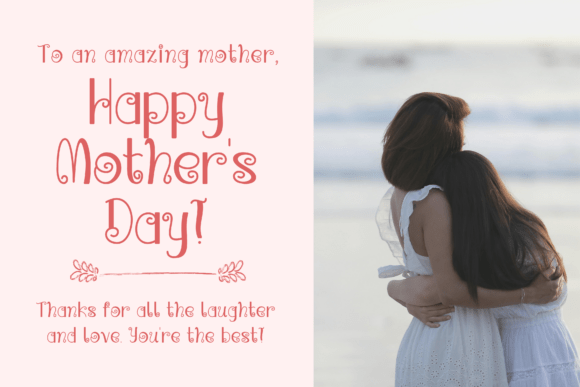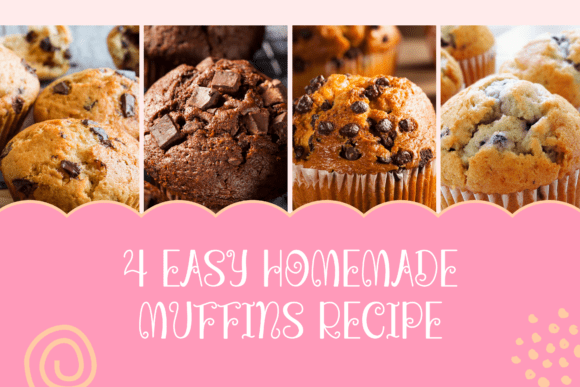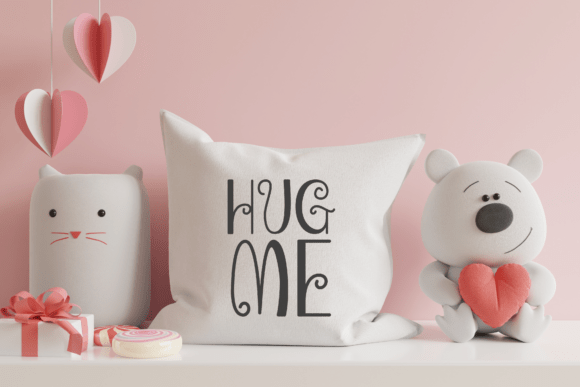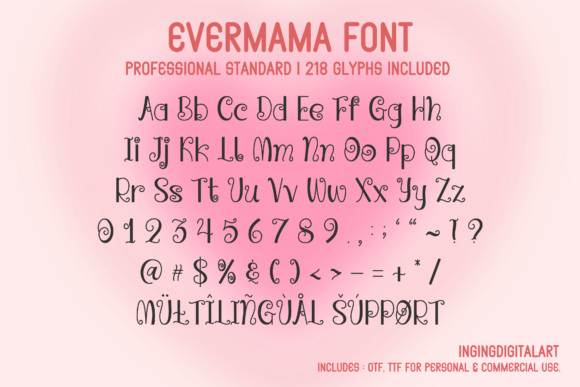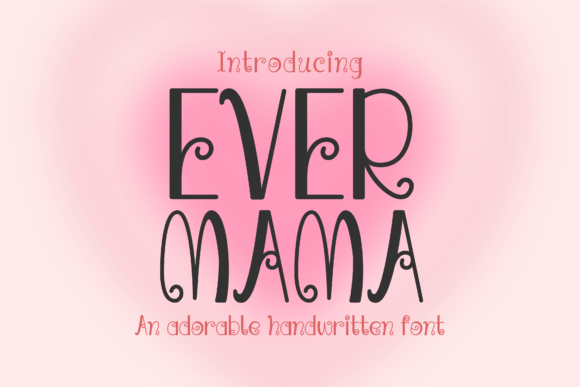
Introducing Evermama Font: Add a Touch of Warmth and Sweetness to Your Creations
Are you looking for a font that can bring a touch of warmth and sweetness to your designs? Look no further than EverMama, an adorable handwritten font with a whimsical twist. This charming font is perfect for designers and crafters who want to add a personal and loving touch to their projects.
The Characteristics of Evermama Font
EverMama font features charming curly details and a playful, feminine style that makes it perfect for heartwarming projects. The font has a joyful, hand-crafted feel that makes every design special. Whether you are designing Mother’s Day greeting cards, sweet recipe layouts, nursery room decor, or beautiful crafted gifts, EverMama brings a cozy and loving aesthetic to your work.
Perfect for Heartwarming Projects
EverMama font is ideal for designers and crafters who want to create heartwarming projects that showcase their personality and style. The font’s playful and feminine style makes it perfect for:
- Mother’s Day greeting cards and invitations
- Sweet recipe layouts and cookbooks
- Nursery room decor and baby shower invitations
- Beautiful crafted gifts and DIY projects
- Wedding stationery and romantic getaway designs
Why Choose Evermama Font?
There are many reasons why EverMama font stands out from other fonts. Here are a few:
- Unique and Whimsical Design: EverMama font has a unique and whimsical design that sets it apart from other fonts. The charming curly details and playful style make it perfect for designers and crafters who want to add a personal touch to their projects.
- Easy to Read and Use: Despite its whimsical design, EverMama font is easy to read and use. The font is clear and legible, making it perfect for designs that require a lot of text.
- Versatile: EverMama font is versatile and can be used for a wide range of projects. Whether you are designing a greeting card, a recipe layout, or a nursery room decor, this font is perfect for any project that requires a personal and loving touch.
Tips for Using Evermama Font
Here are a few tips for using EverMama font in your designs:
- Pair it with Other Fonts: EverMama font pairs well with other fonts, especially serif fonts. Try pairing it with a serif font for a beautiful and elegant design.
- Use it for Headings and Titles: EverMama font is perfect for headings and titles. Use it to add a personal touch to your designs and make them stand out.
- Experiment with Colors and Textures: EverMama font looks great with a variety of colors and textures. Experiment with different colors and textures to add depth and interest to your designs.
EverMama font is a beautiful and charming font that can add a touch of warmth and sweetness to your designs. With its whimsical design, playful style, and versatility, this font is perfect for designers and crafters who want to create heartwarming projects. Whether you are designing Mother’s Day greeting cards, sweet recipe layouts, nursery room decor, or beautiful crafted gifts, EverMama font is the perfect choice. So why wait? Download EverMama font today and start creating beautiful and heartwarming designs!